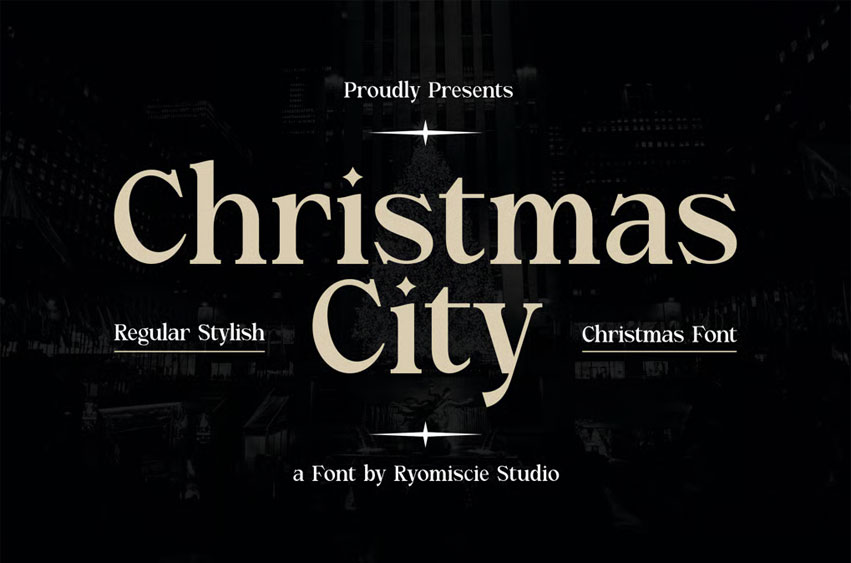
Christmas City Font
Christmas City Font Modern Font is a bold and authentic display font. The font is suitable for any branding project, like logos, esport, and many more.
Outstanding in a wide range of contexts.